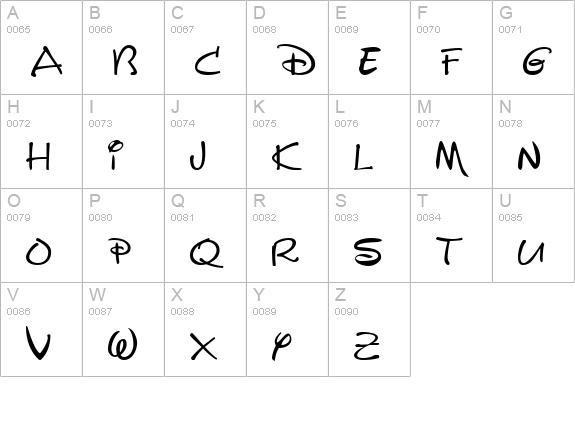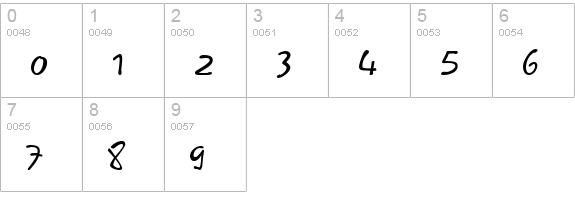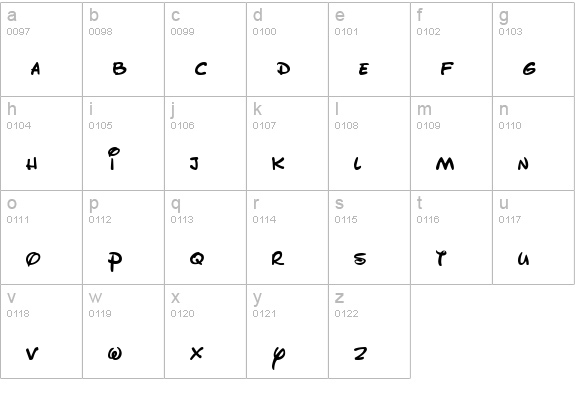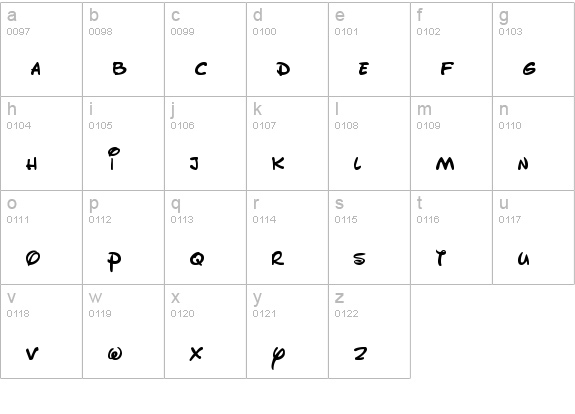
Disney Park Regular is the standard, neutral variant in the Disney typeface family \xE2\x80\x94 well suited to general body text, paragraphs, and standard typographic work.
Disney Park Regular font is a whimsical and enchanting typeface that captures the magic of the beloved Disney theme parks. With its playful curves and lively design, this font is perfect for adding a touch of fantasy to your projects. Whether you're creating invitations, posters, or branding materials, Disney Park Regular will bring a sense of wonder and joy to your designs. Best of all, Disney Park Regular font is available for free download at FontsMarket.com. So go ahead and bring a sprinkle of Disney magic into your creations with this delightful and enchanting font.